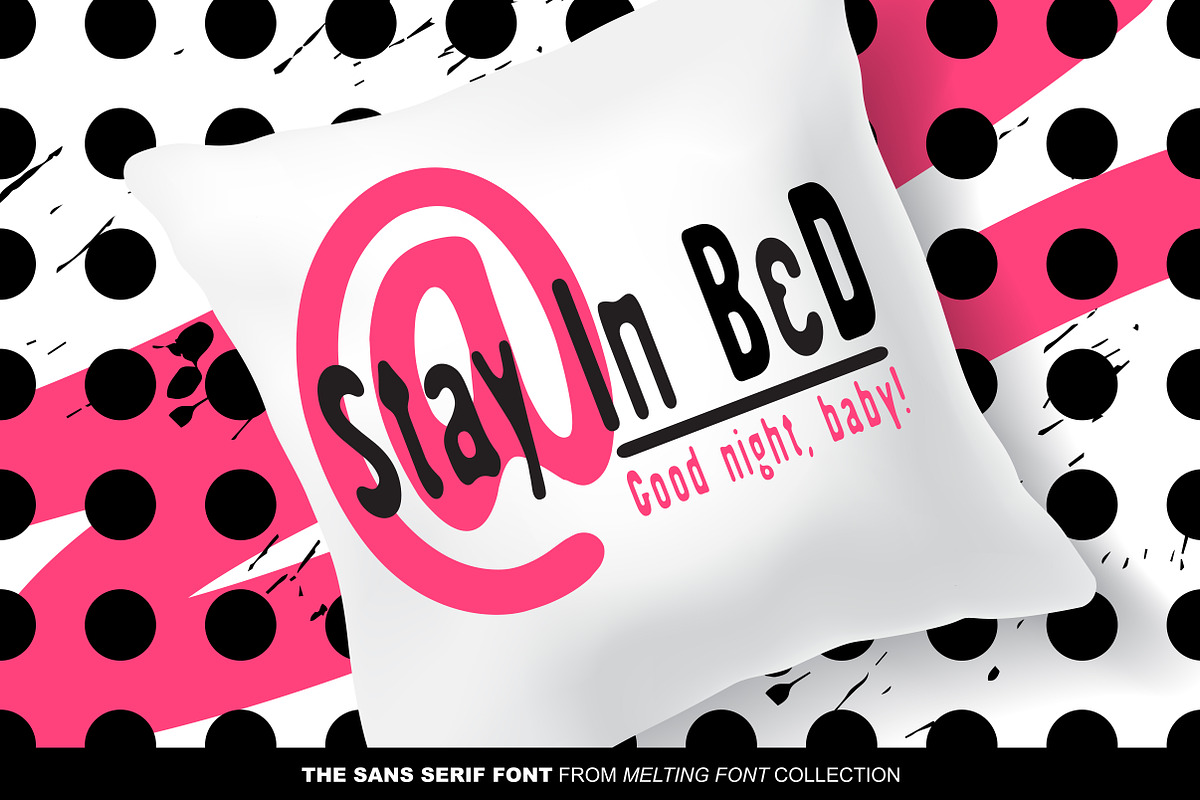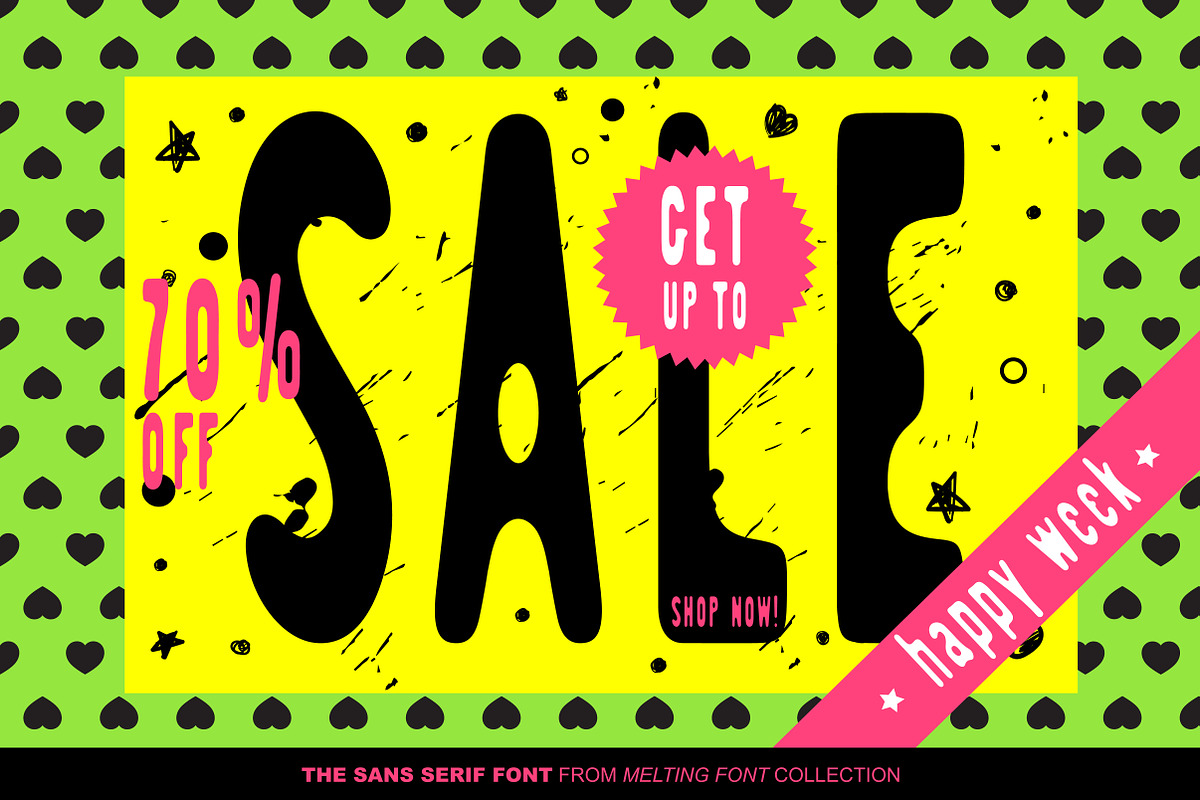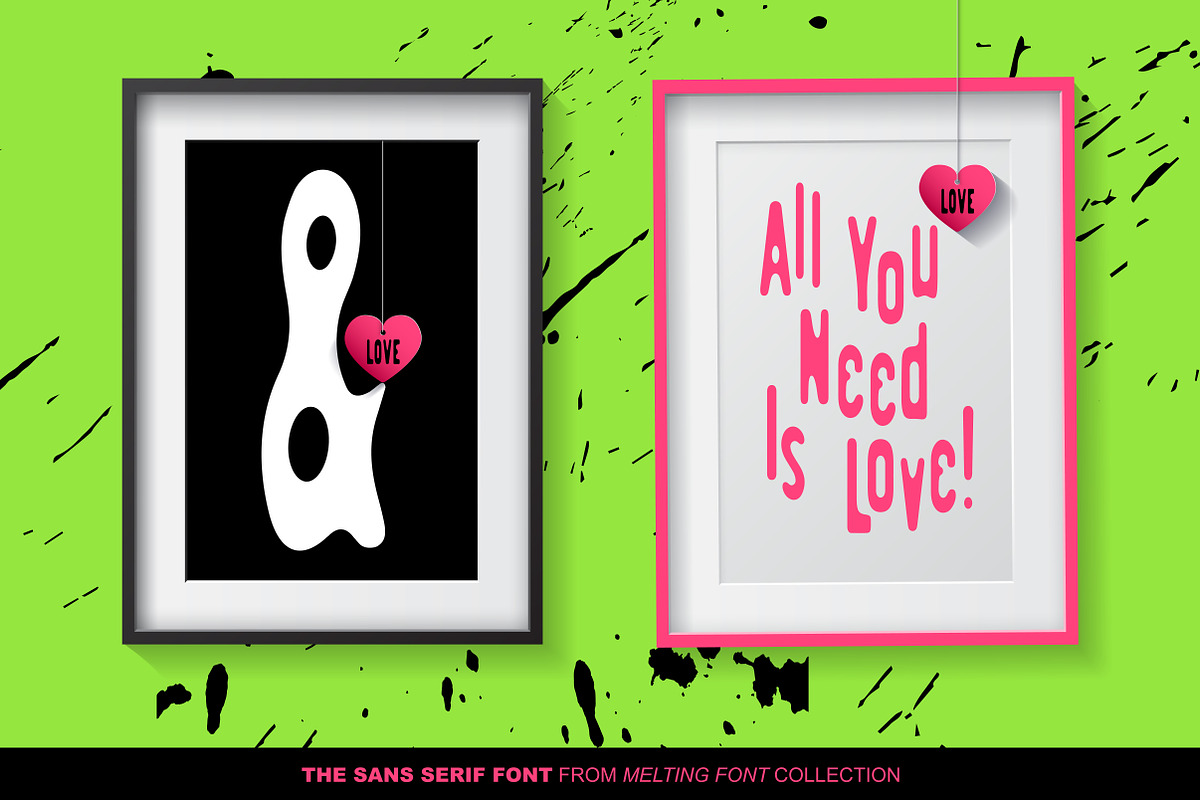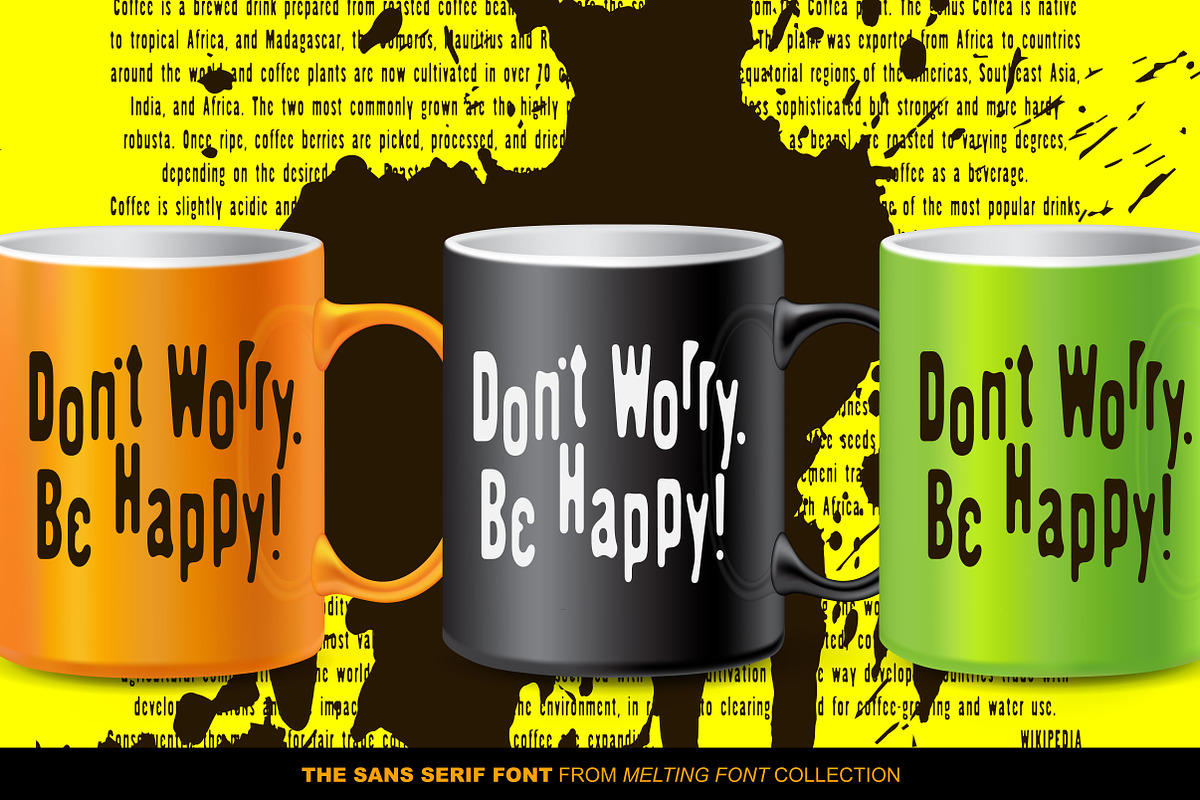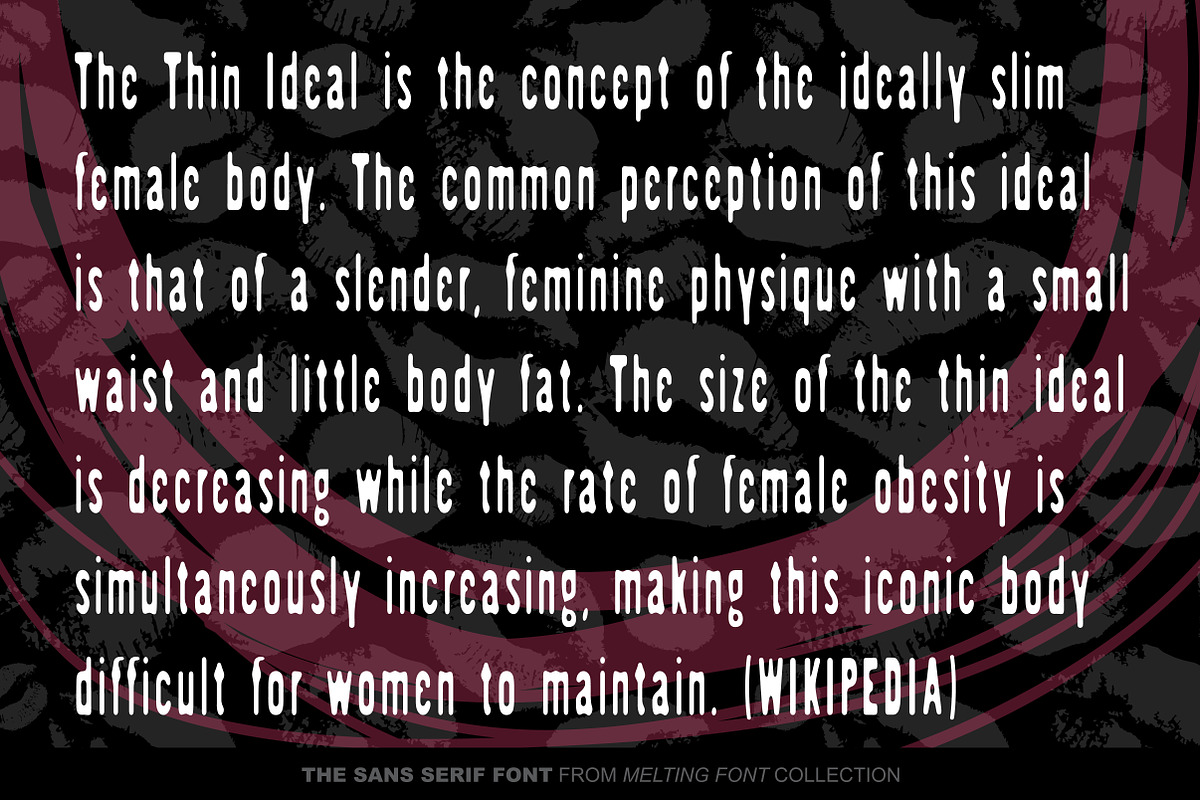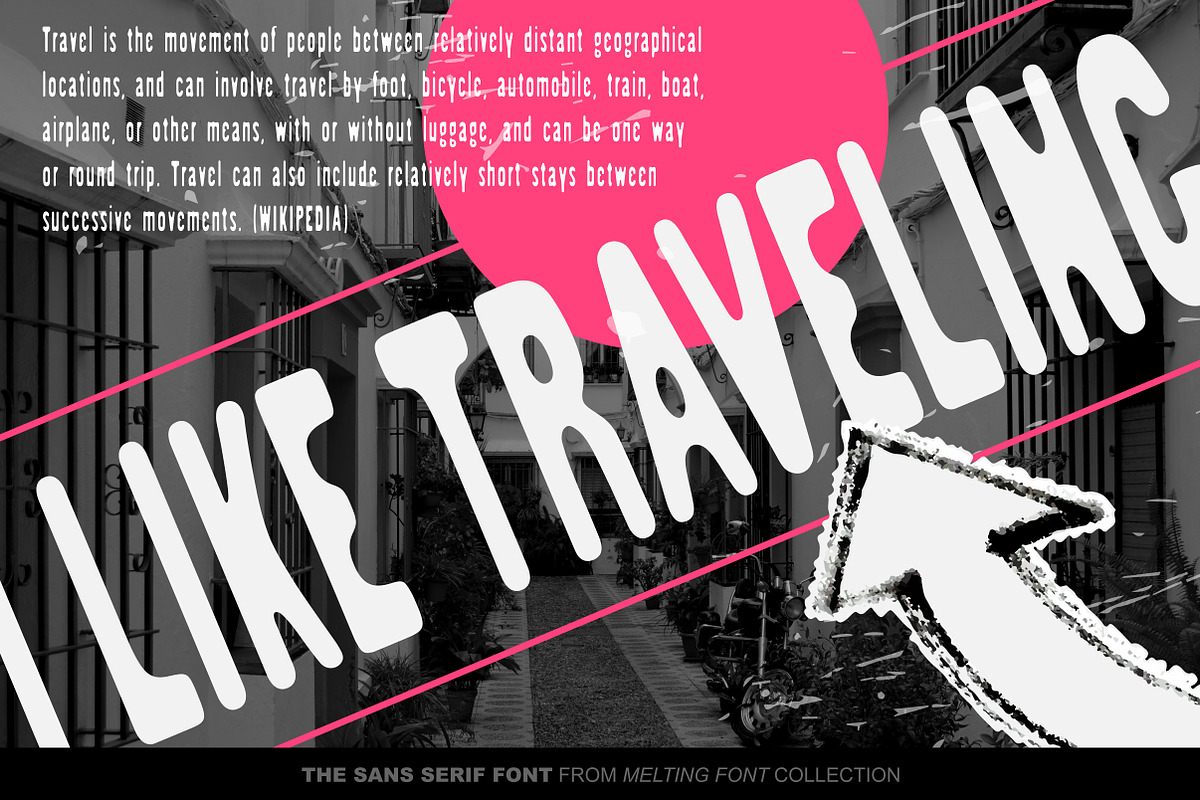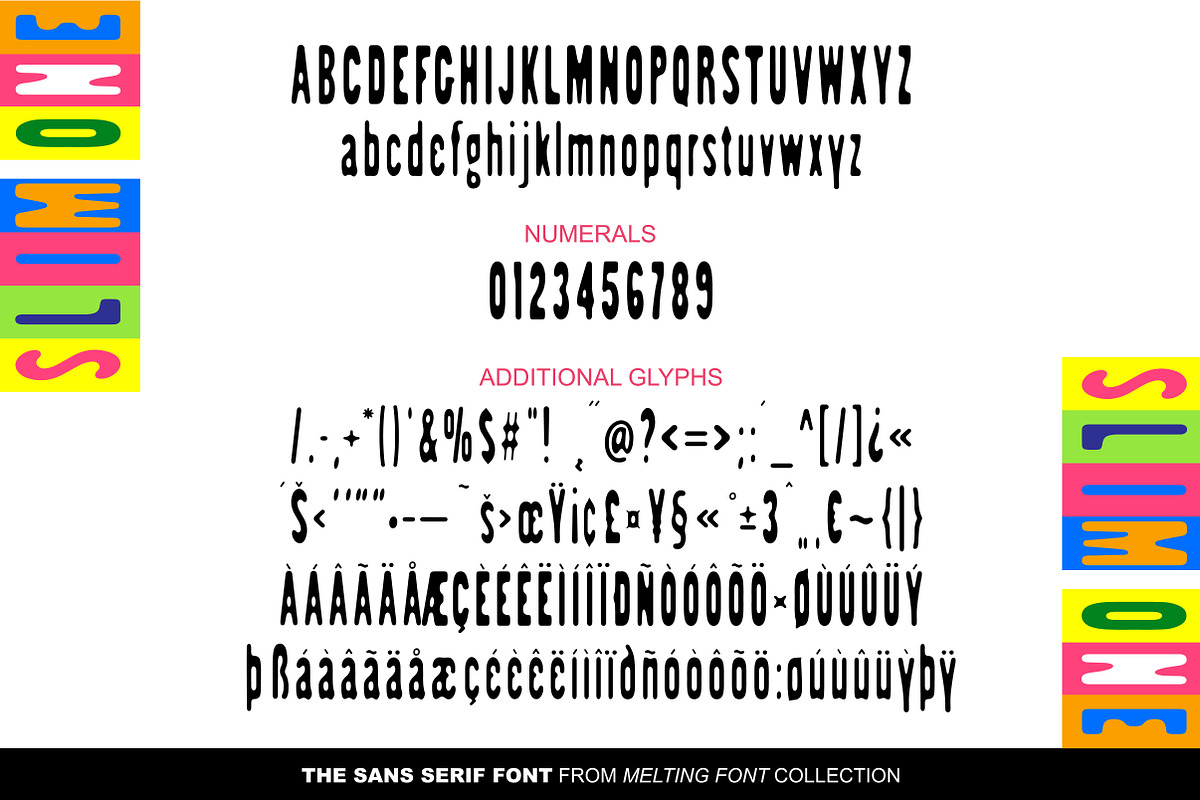
SlimOne Normal Sans Serif Font
SlimOne Normal Sans Serif Font by GalaStudio is a font selected for branding, posters, packaging, typography.
- Numbers, additional glyphs & basic punctuation are included.
- Multilingual support included for the languages based on Latin alphabet.
Why SlimOne Normal Sans Serif Font is worth a look
SlimOne Normal Sans Serif Font by GalaStudio fits naturally into Branding, posters, packaging, typography.